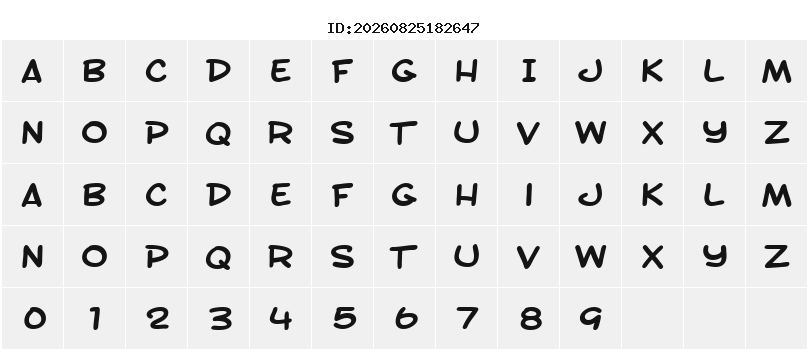
SF Toontime Extended Preview
• Font Name: SF Toontime Extended
• Font ID: ShyFontsTypeFoundry: SF Toontime Extended Bold: 2000
• Full Font Name: SF Toontime Extended Bold
• PostScript Name: SFToontimeExtended-Bold
• Character Count: 204
• Designer: ShyFonts Type Foundry
• Description: SF Toontime Extended Bold is a trademark of the ShyFonts Type Foundry.
About SF Toontime Extended.ttf
SF Toontime Extended.ttf is a modern, elegant sans-serif font designed for ultimate readability and visual harmony. Perfect for branding, headlines, web design, and print materials.